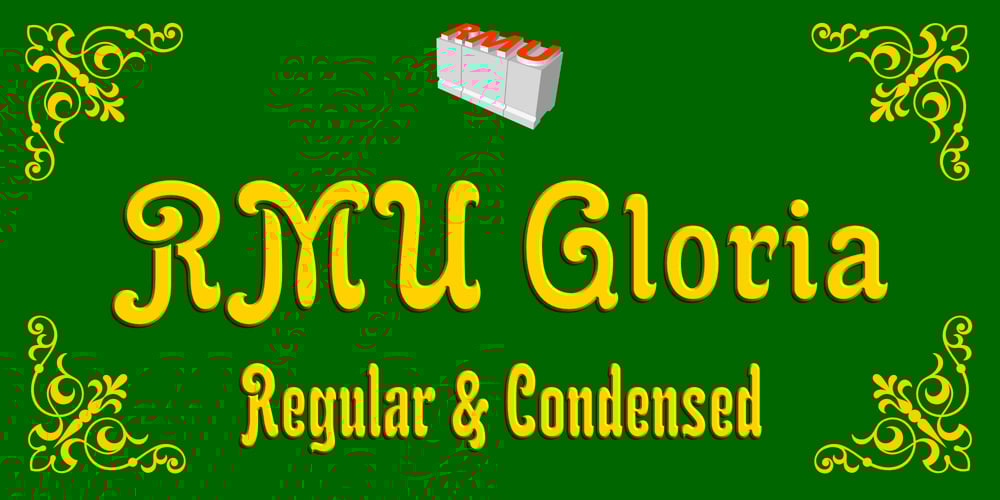
RMU Gloria
RMU Gloria font
RMU Gloria Font Family was designed by Ralph M. Unger and published by RMU. RMU Gloria contains 2 styles and family package options. RMU Gloria is a family of two stylish fin-de-siècle fonts, formerly released by the Gursch Foundry, Berlin, which additionally were spiced with elements for frame making.